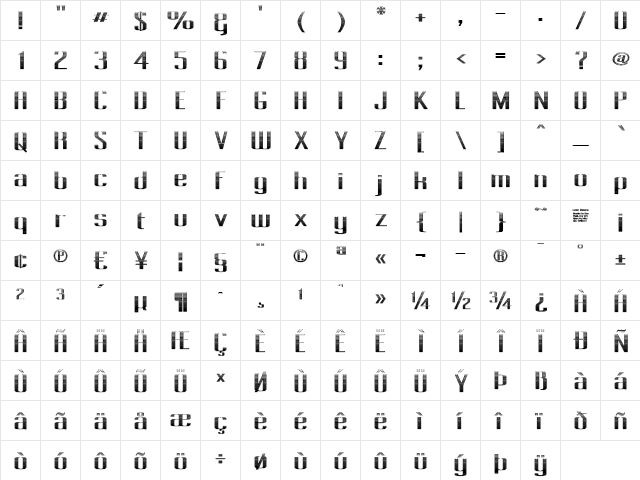
Pecot Lined Jewel Regular
Design Context for Pecot Lined Jewel Typeface
Pecot Lined Jewel is a composed and adaptable typeface that performs quietly and consistently across a wide range of design contexts.
Pro Tip: Use Pecot Lined Jewel in both headline and body roles to test its range before committing to a single application.